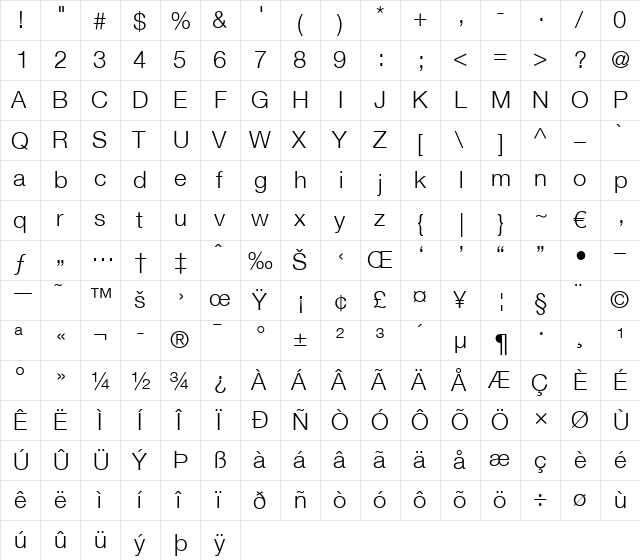
HelveticaNeue LT 45 Light Regular Font Preview
HelveticaNeue LT 45 Light Regular
HelveticaNeue LT 45 Light Regular Font Details
| Designer | Adrian Frutiger |
Design Context for HelveticaNeue LT 45 Light Typeface
HelveticaNeue LT 45 Light offers clean, dependable letterforms without strong stylistic allegiance, making it a practical choice for designers who need flexibility. Its slender proportions lend an understated elegance to any composition.